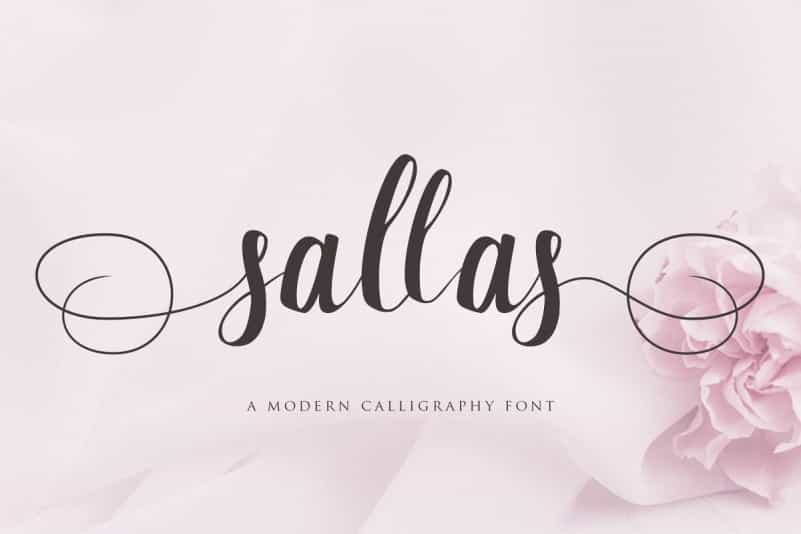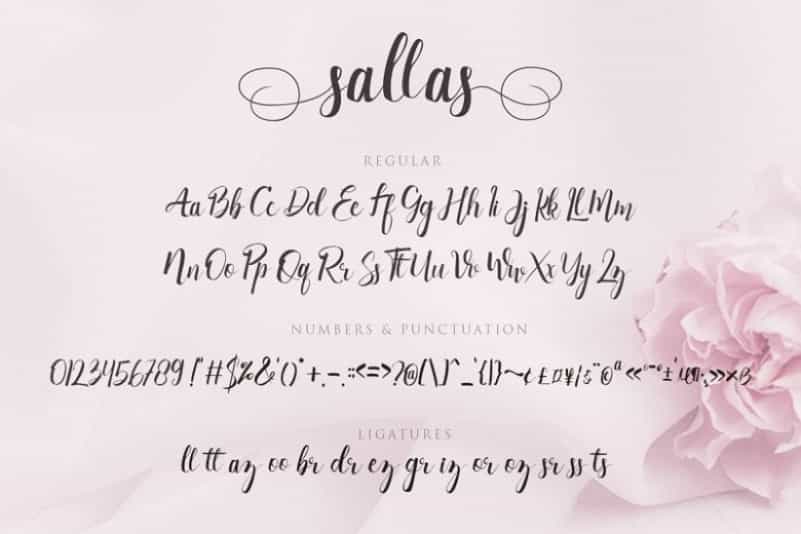
We introduce our new Sallas Font, which is fantastical and at the same time very modern. Sallas is just the right designer for you to help with all your projects like logos, branding, invitations, stationery, wedding designs and so on.